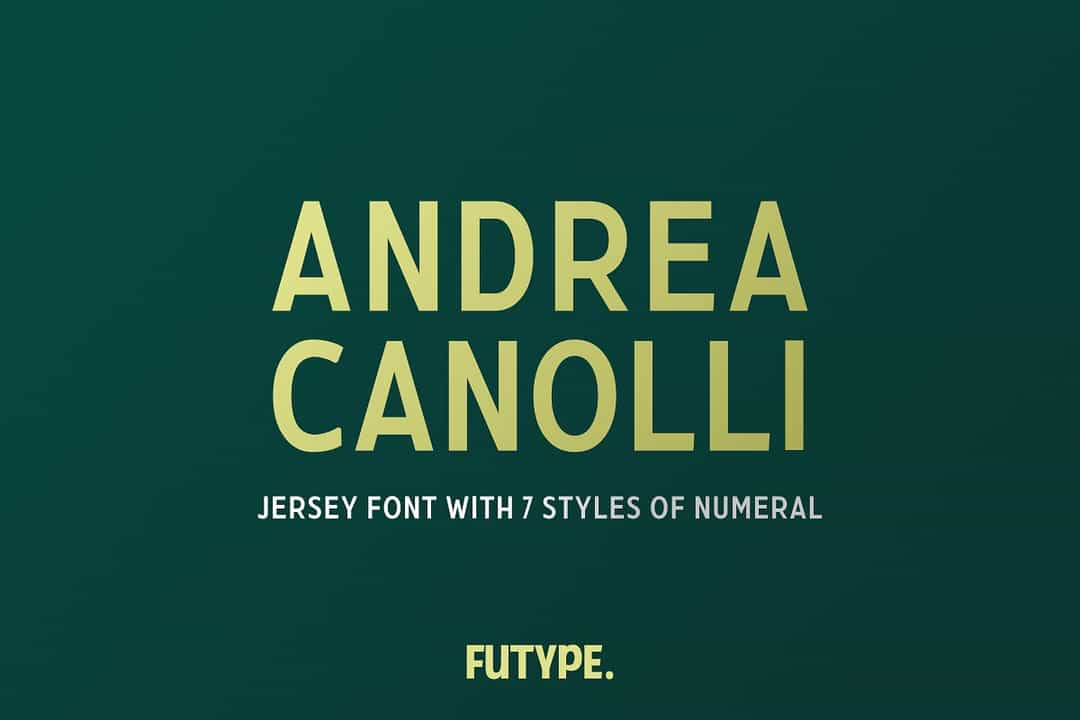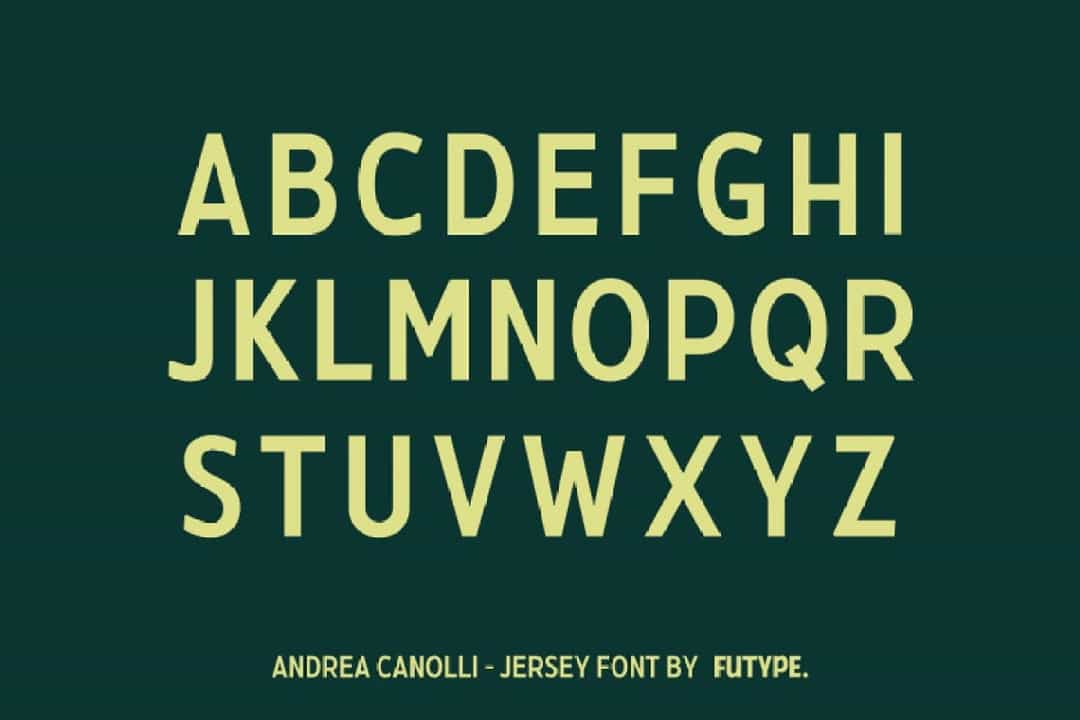
Andrea Canolli is a sans-serif font designed specifically for soccer/football or other sports kit names and numbers, featuring seven distinct styles of numerals to select as your squad name and number. Even though Andrea Canolli was intended as a sporting font, its base font allows it to be used for other purposes as well.